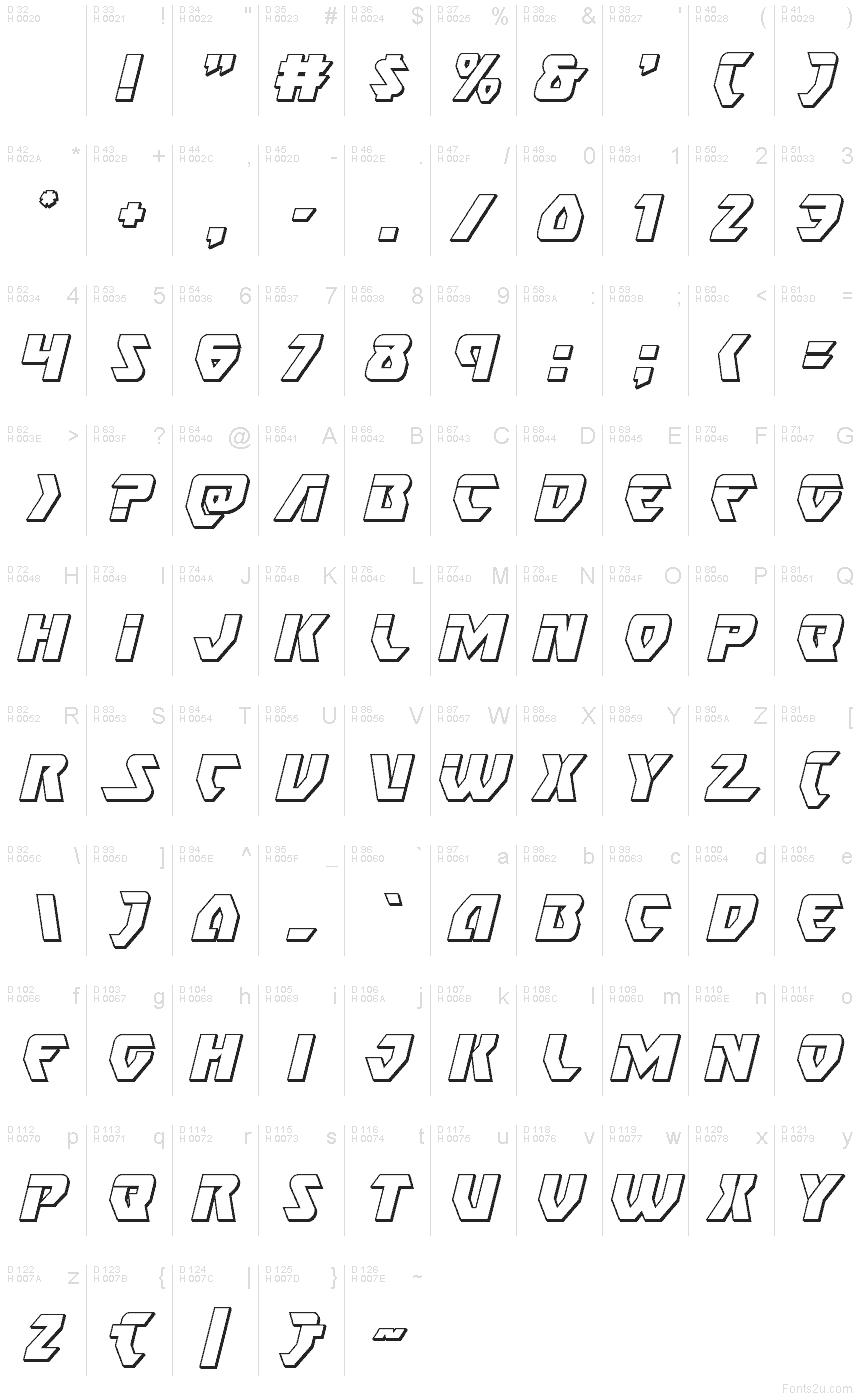
Ion Cannon 3D Italic
Ion Cannon 3D Italic font by Iconian Fonts gives off a futuristic technological feel with its condensed bold style and geometric angular letters. The modern free display font presents strength and power while delivering letters of dynamic slanted angles for a strong presence.
The sci-fi themed font will instantly boost your tech branding, business cards, magazines, posters or video games energy. Ion Cannon 3D Italic is furthermore advantageous for movie titles, packaging designs, gadgets ads, album covers, website headings, social media channels etc..